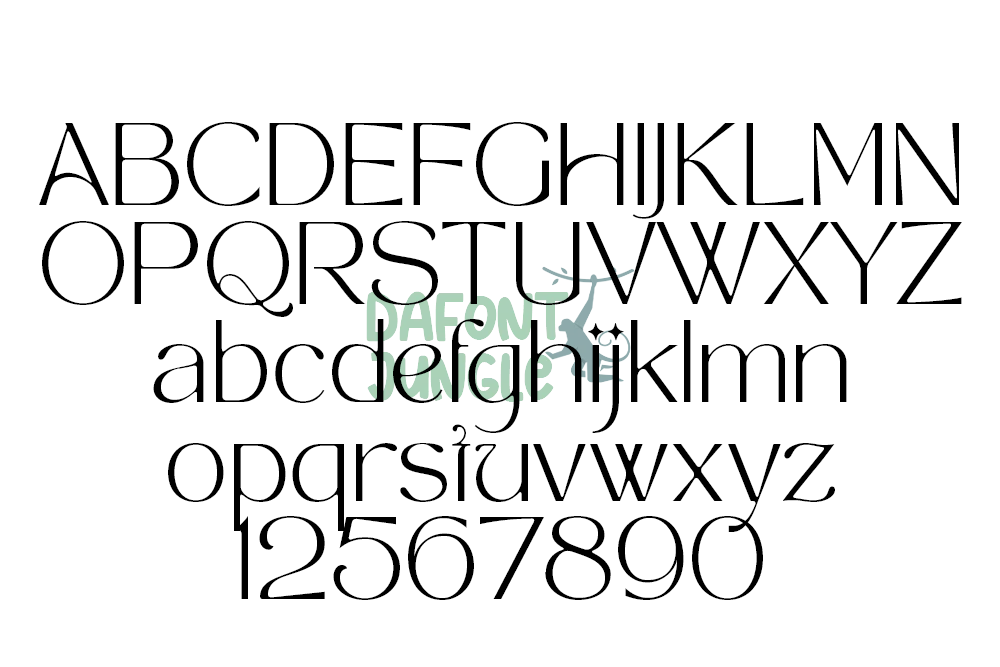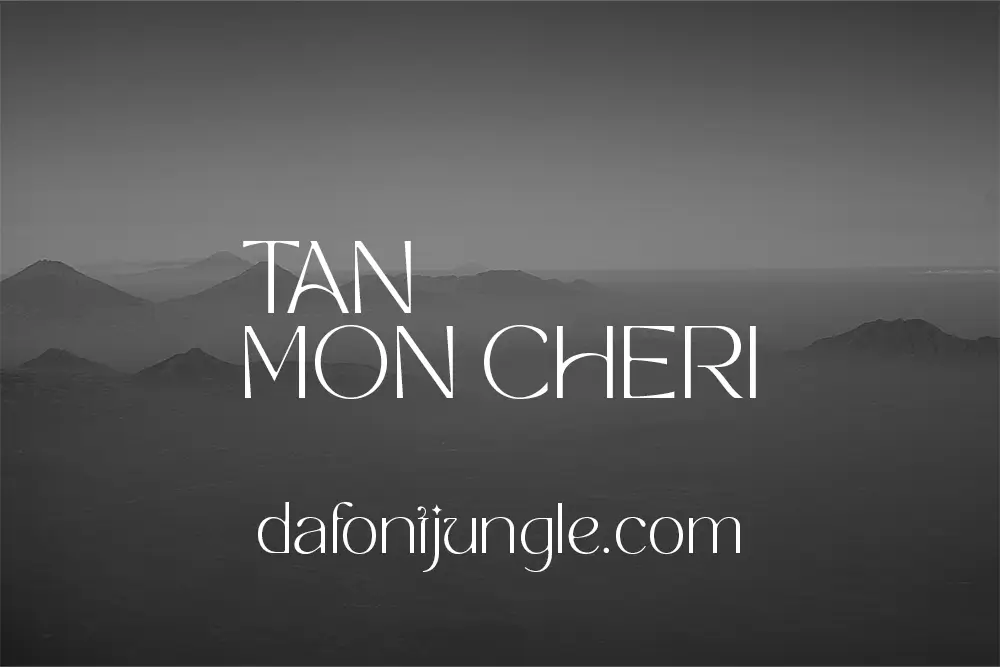
TAN – MON CHERI – Elegant Sans Serif with Playful Ligatures
TAN – MON CHERI is a refined sans serif font with a touch of personality. It features clean, simple letterforms combined with playful ligatures, creating a unique and stylish look while maintaining excellent legibility. This balance makes it ideal for branding, packaging, social graphics, and modern editorial layouts.
Its minimalist elegance adds charm to both headlines and body text, offering versatility across digital and print projects.